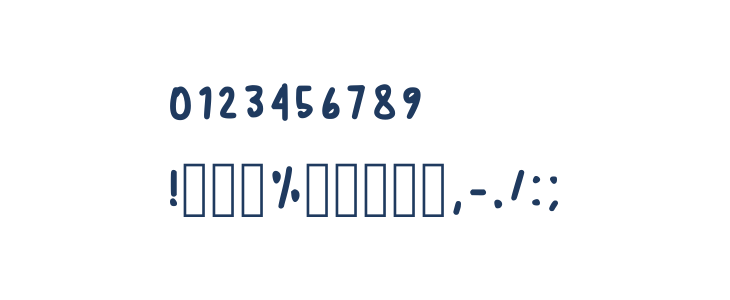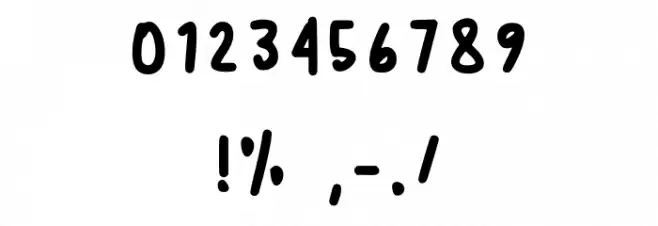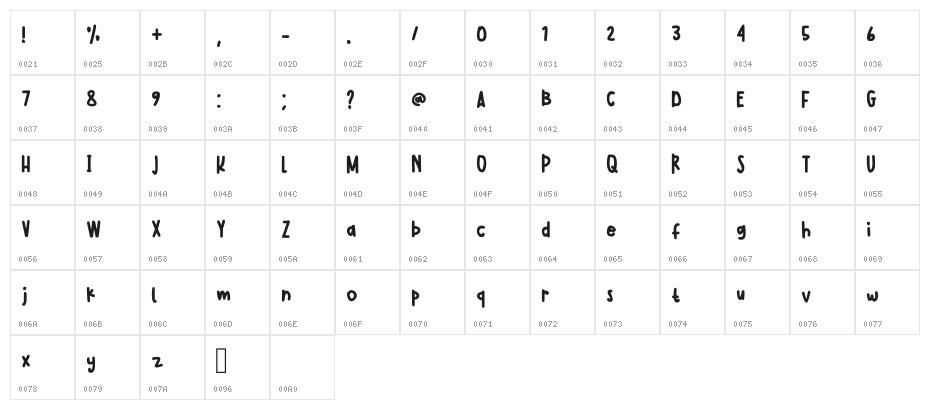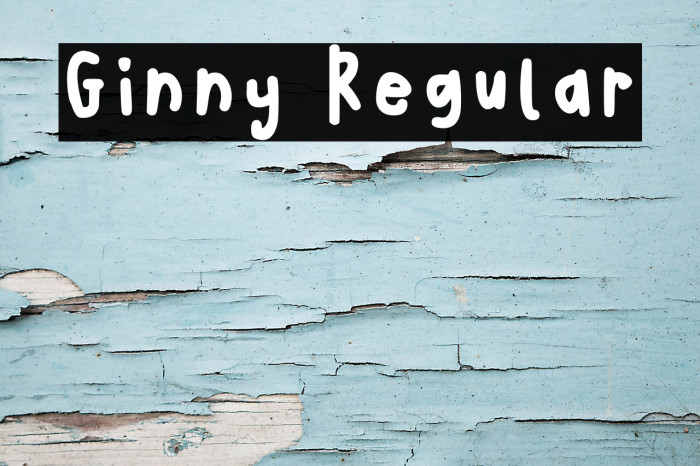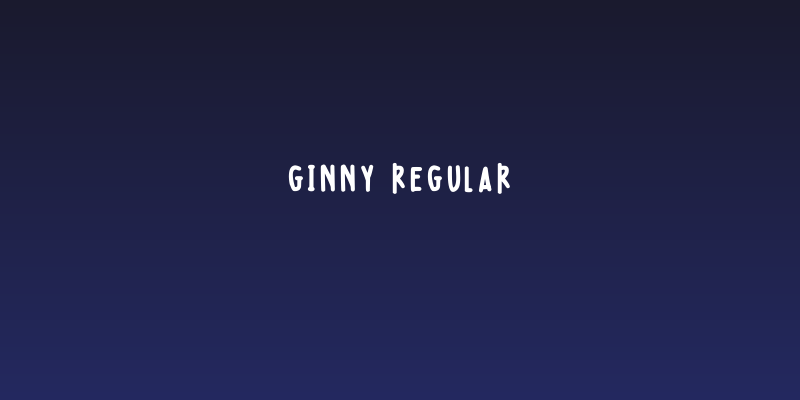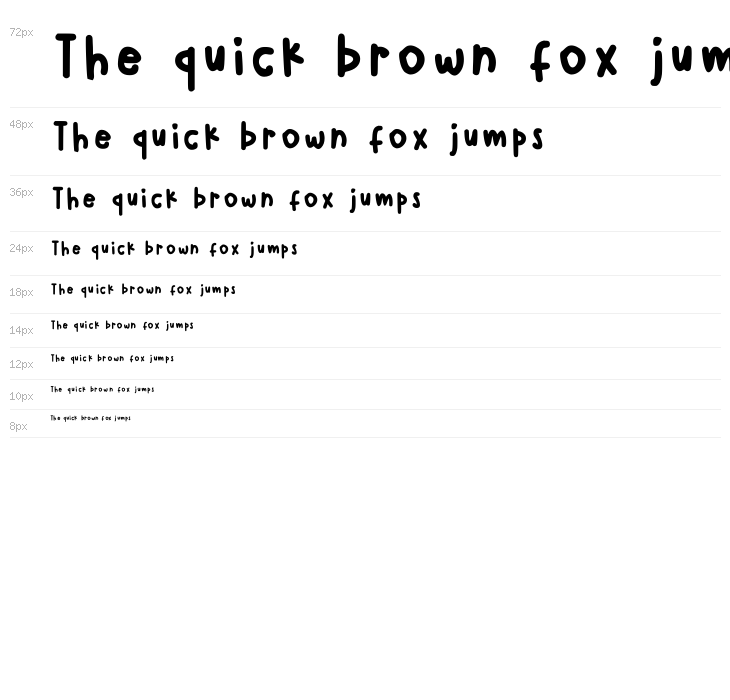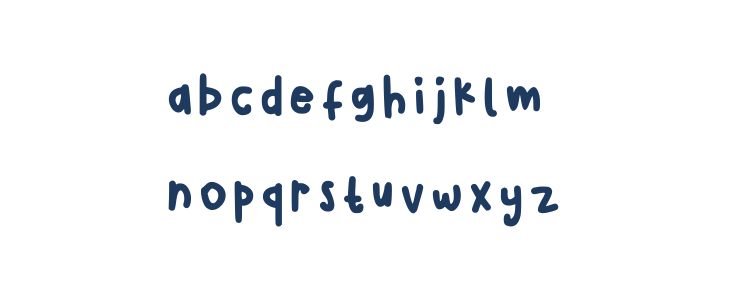
Ginny Regular Font
Ginny Regular Description
This playful and whimsical font features a handwritten style with rounded edges and a casual, friendly appearance. The characters are slightly irregular, adding a touch of charm and personality. The uppercase and lowercase letters maintain a consistent style, with a slight tilt that enhances the informal feel. The numbers and special characters are crafted with the same playful aesthetic, making it suitable for creative projects. The font's overall appearance is approachable and fun, making it ideal for designs that require a personal touch.
| Overall Style | Playful, Casual |
| Proposed Projects | Ideal for children's books, greeting cards, playful branding, and social media graphics. |